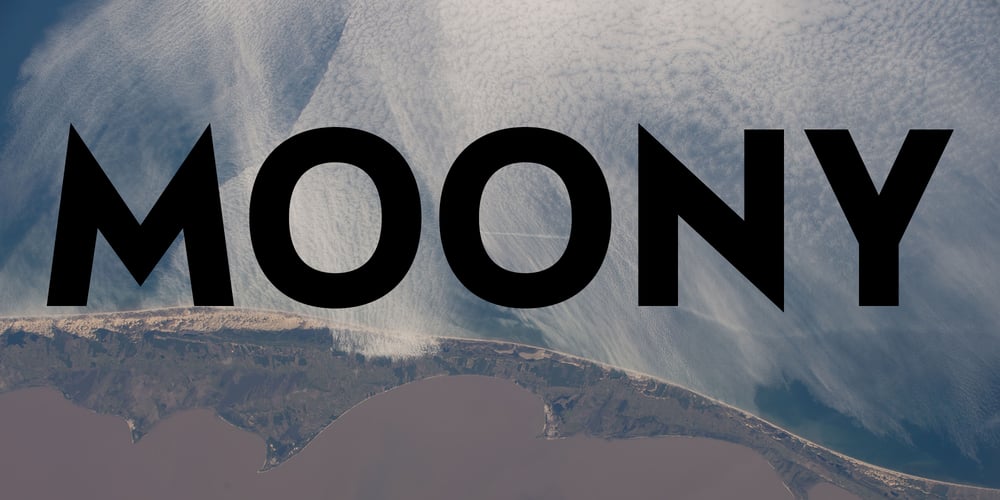
Moony
Moony font
Moony Font Family was designed by Leonhard Katschner and published by Brave Type. Moony contains 8 styles and family package options. Moony masterfully blends edgy sophistication with gentle elegance, creating a typeface that exudes an aura of refined strength. Perfect for bold headlines and striking titles, Moony’s minimalist sans serif design carries a unique personality that stands out.Available in eight distinct styles across various weights, Moony offers versatile pairings with other fonts, including scripts. Elevate your neutral designs with Moony’s assertive yet graceful presence, making a powerful statement in any setting.